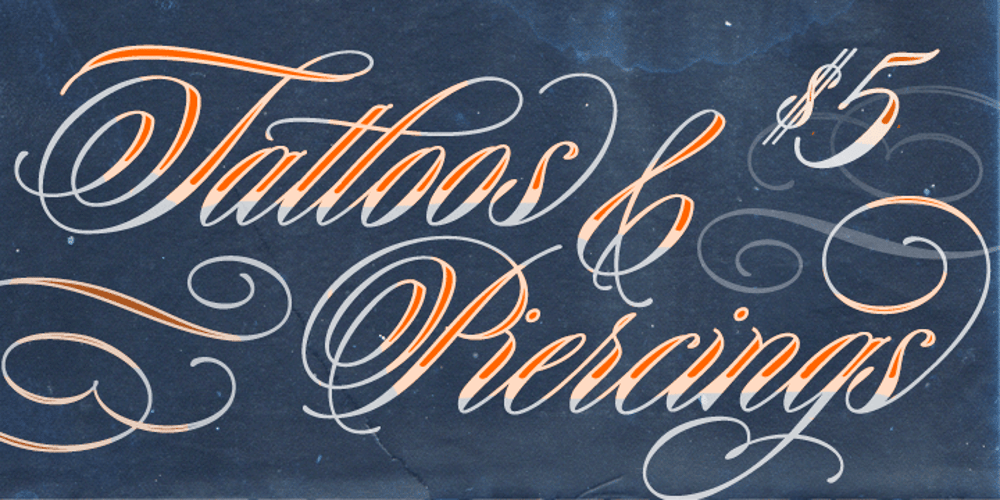
Keepsake Font Family was designed by Stephen Miggas and published by Aerotype. Keepsake contains 5 styles and family package options. The Keepsake™ family has five members that can be combined to provide a range of creative options. Rich with OpenType features including discretionary and contextual alternate characters and ligatures, and other stylistic alternates. Each face includes three options for every capital letter and multiple lowercase options. All five fonts support Latin, Eastern European and Baltic languages. Other features include four decorative elements, and optional old-style figures accessible by supporting application’s OpenType menu.